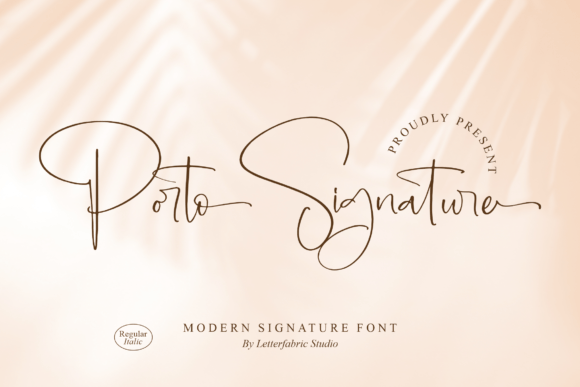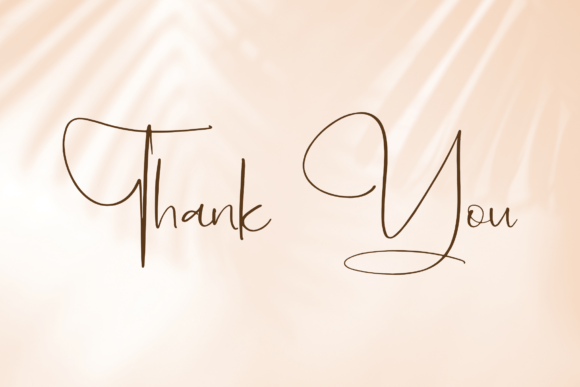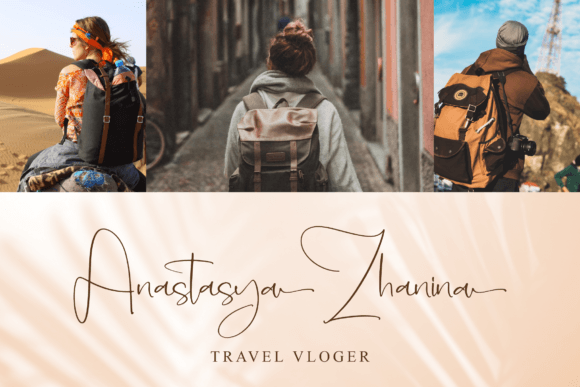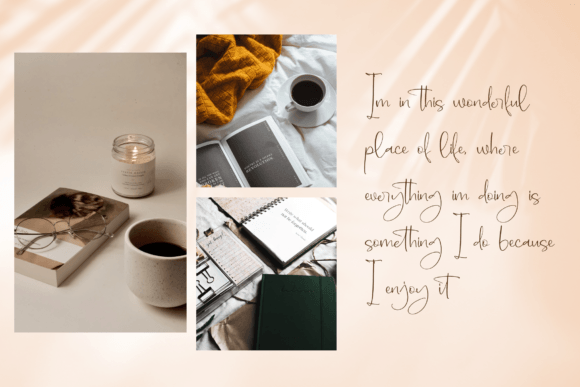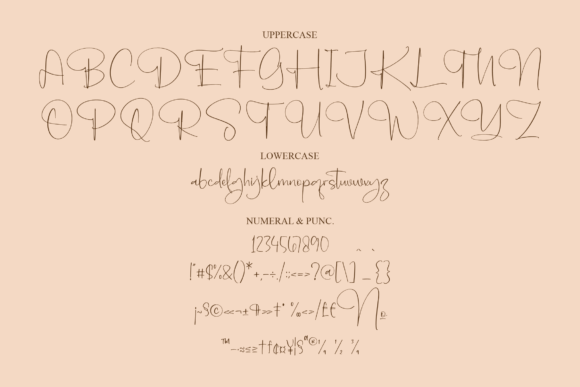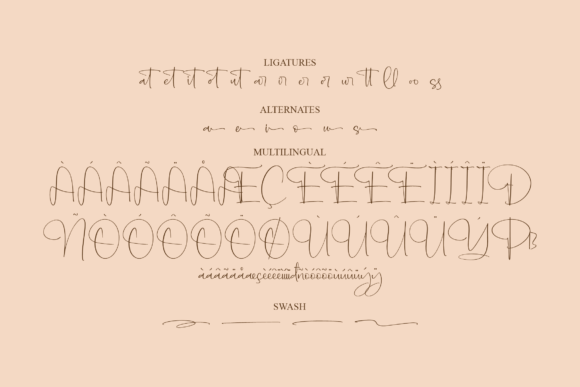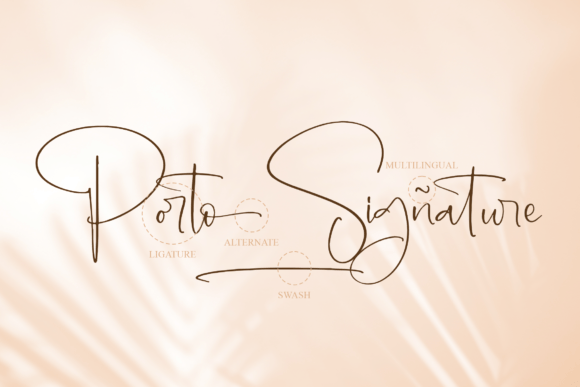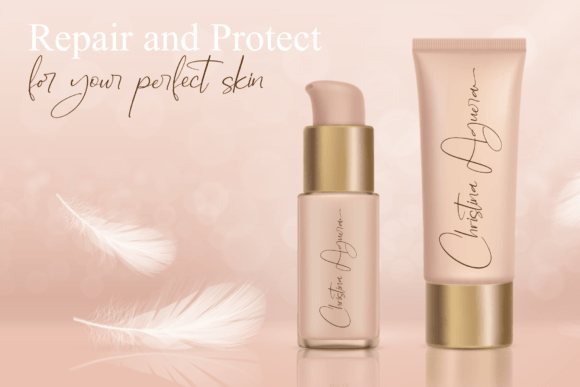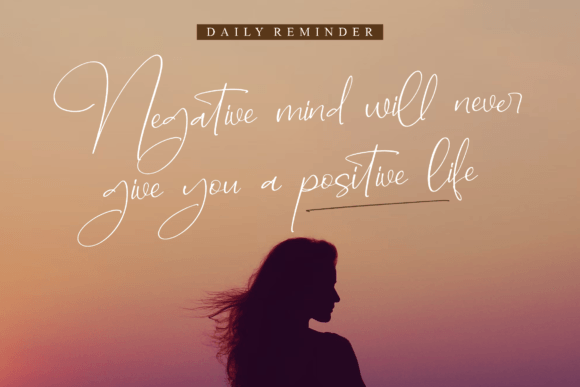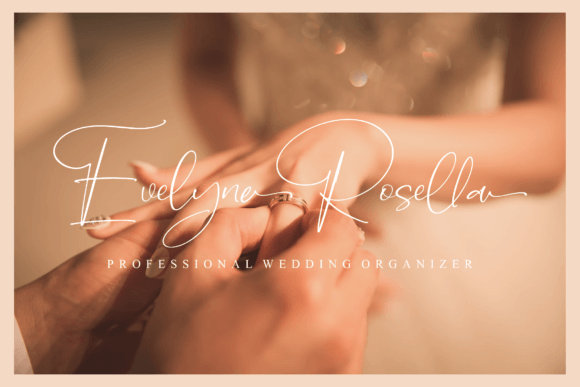
Porto Signature Font
About Porto Signature Font
**”Porto Signature”** is a beautiful and light handwritten font that possesses a unique and stunning impact. This font has the ability to infuse a sense of luxury into any design project, making it a perfect choice for those seeking to create visually captivating and high-end designs.
The unique feel of **”Porto Signature”** sets it apart and ensures that it leaves a memorable impression on viewers. Its handwritten style adds a personal and artistic touch to your designs, making them stand out.
In design projects that require a luxurious touch, such as branding, invitations, packaging, and more, **”Porto Signature”** excels in elevating the overall aesthetics. It communicates a sense of refinement and elegance that enhances the perception of your brand or product.
For invitations, particularly for weddings, upscale events, or special occasions, this font enhances the overall sense of elegance and exclusivity. **”Porto Signature”** adds a touch of sophistication to invitation designs, setting the tone for a memorable event.
In branding and packaging, this font contributes to a luxury spark that can attract discerning customers and convey a premium quality to your products.
The fact that **”Porto Signature”** is PUA encoded provides you with easy access to its amazing glyphs and ligatures, enabling you to explore various design possibilities and customization options.
In summary, **”Porto Signature”** is a beautiful and light handwritten font that brings a unique feel and a stunning impact to your design projects. Its ability to add a luxury spark and its versatility make it a valuable choice for branding, invitations, packaging, and any project where a touch of elegance and refinement is desired.